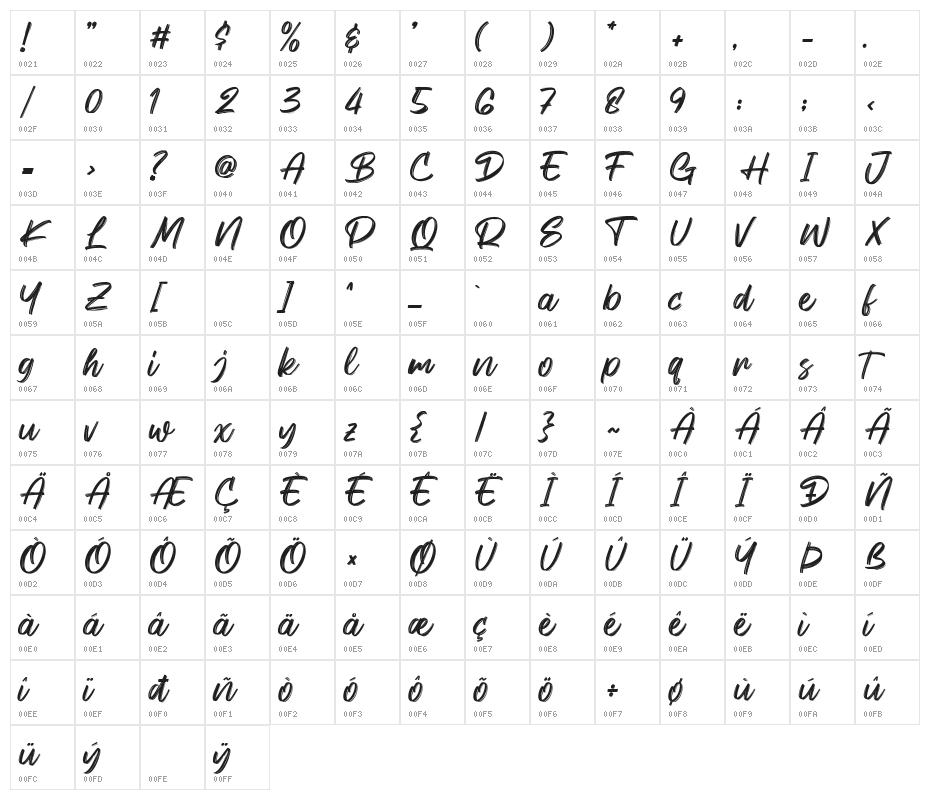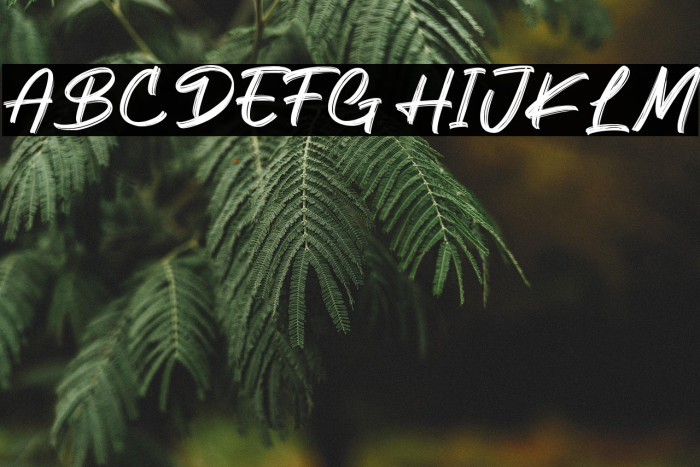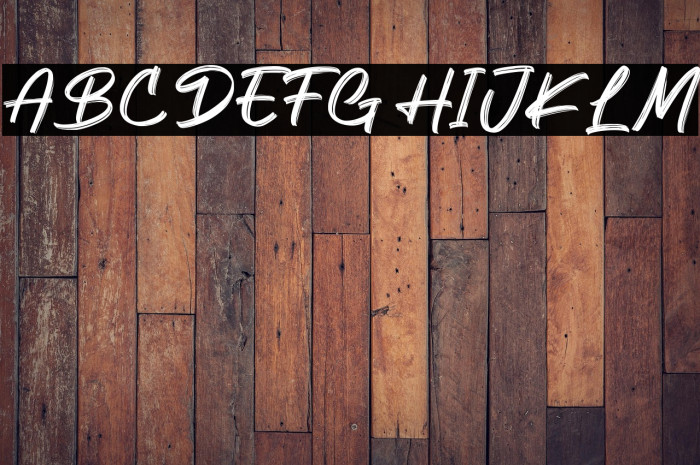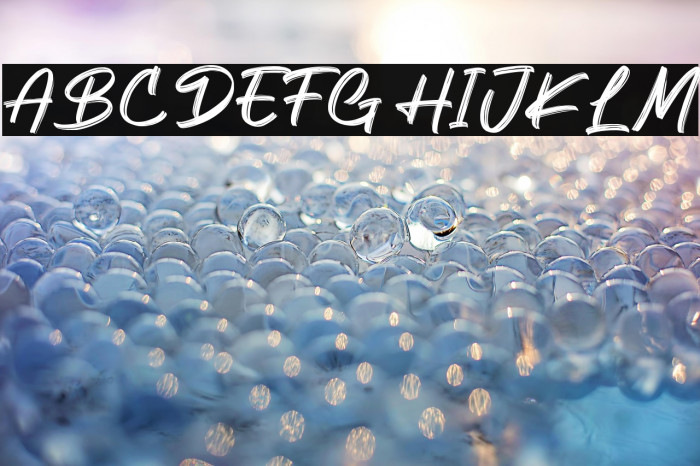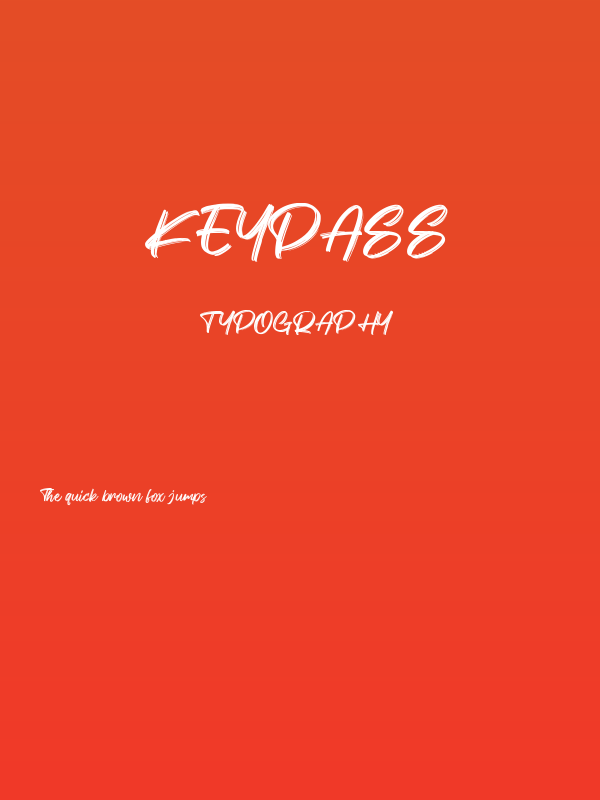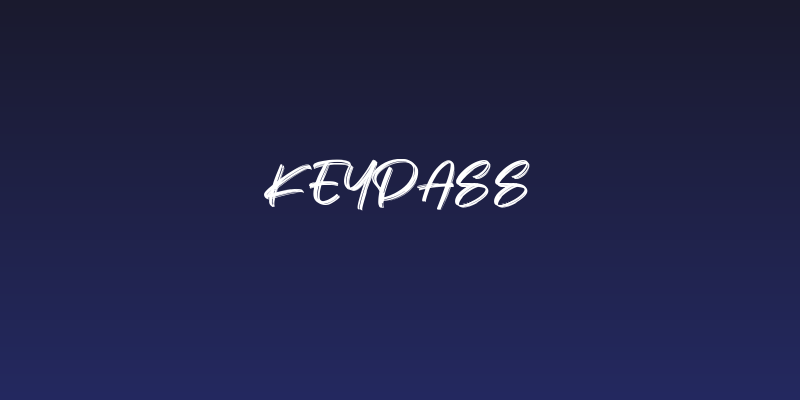
Keypass Font
Keypass Description
This font features a dynamic and energetic handwritten style, characterized by bold, sweeping strokes and a slightly slanted orientation. The letters are crafted with a brush-like texture, giving them a lively and expressive appearance. The uppercase and lowercase letters maintain a consistent style, with a playful yet sophisticated flair. Numbers and special characters are equally expressive, complementing the overall aesthetic. The font's design is ideal for projects that require a personal touch, such as invitations, branding, or artistic endeavors. Its bold presence makes it stand out, while the fluidity of the strokes adds a sense of movement and creativity.
| Overall Style | Modern, Decorative |
| Use Case | Headlines, Logos, Artistic projects |
| Proposed Projects | Ideal for invitations, branding, artistic projects, and any design requiring a personal, creative touch. |